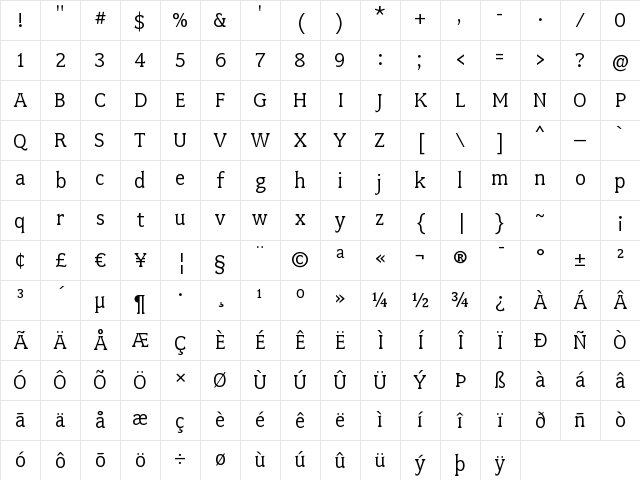
FairplexNarrowBook Regular
Designer: Zuzana Licko
Design Context for FairplexNarrowBook
FairplexNarrowBook is a composed and adaptable typeface that performs quietly and consistently across a wide range of design contexts. Its narrow stance lets it pack a punch even in space-constrained designs.
A practical choice for tight layouts, multi-column editorial design, and space-efficient signage.